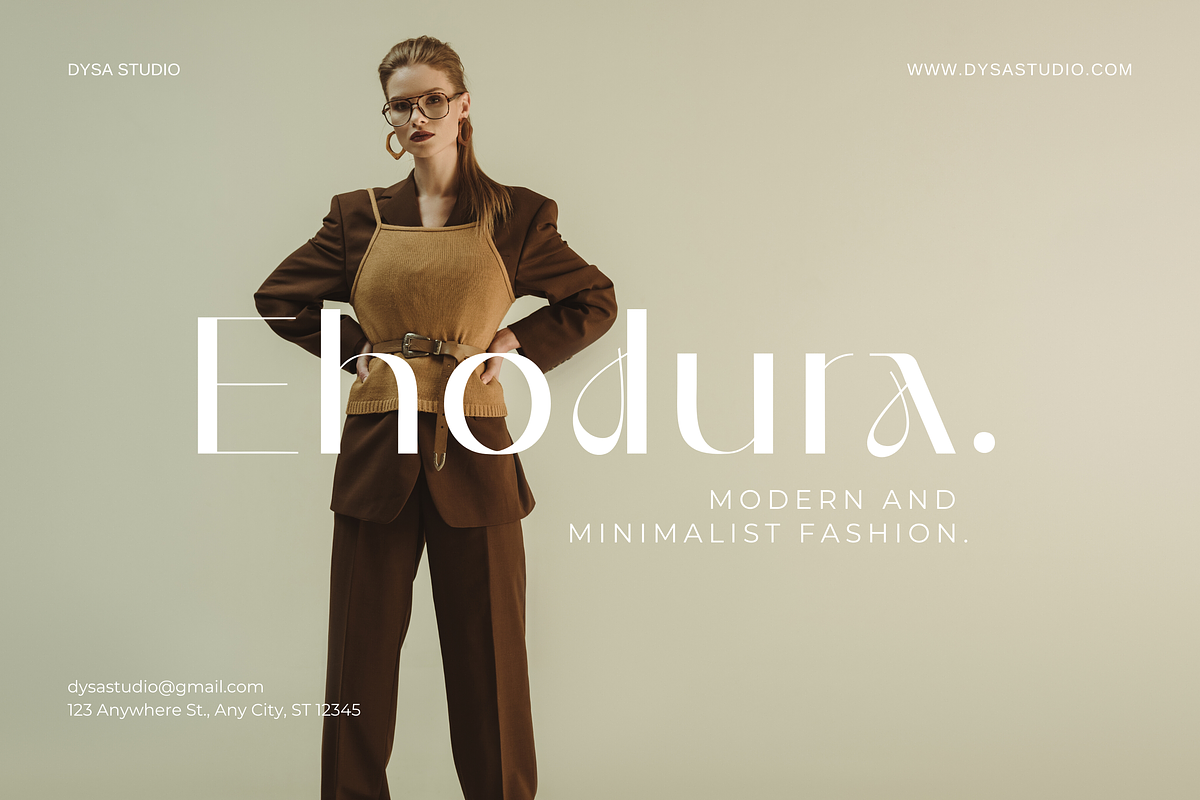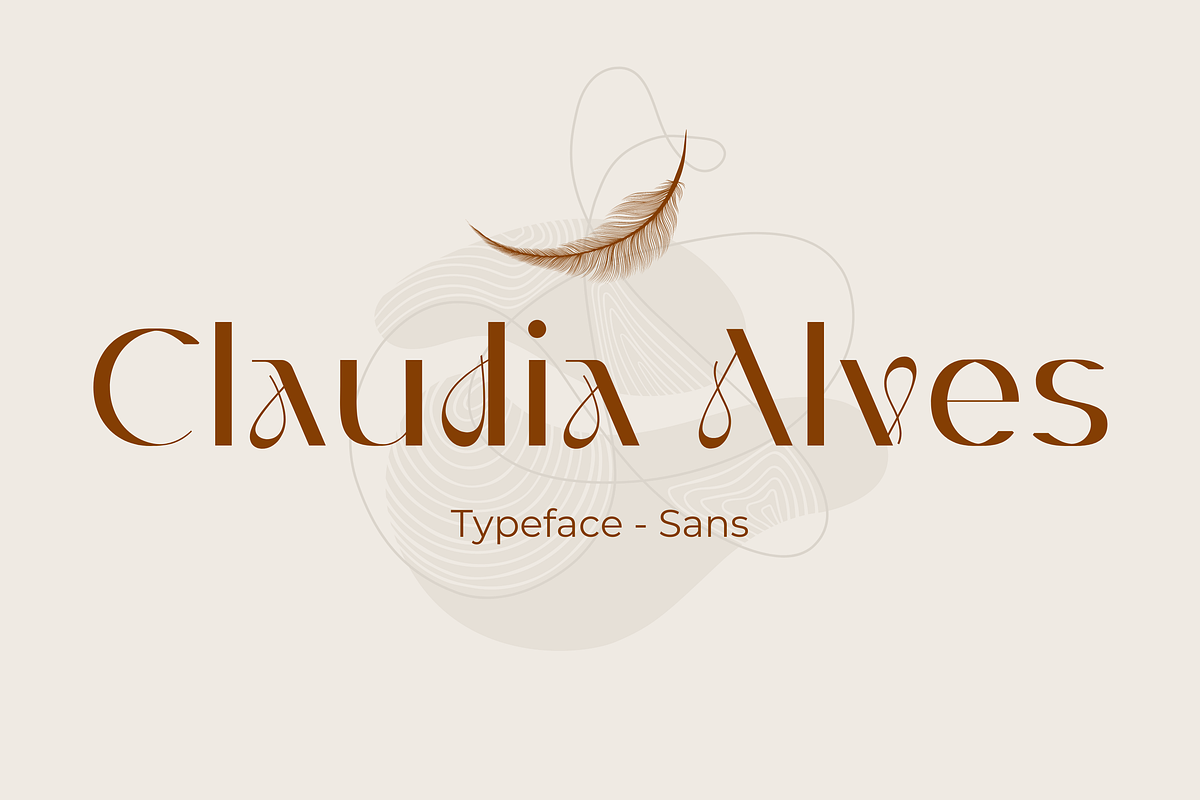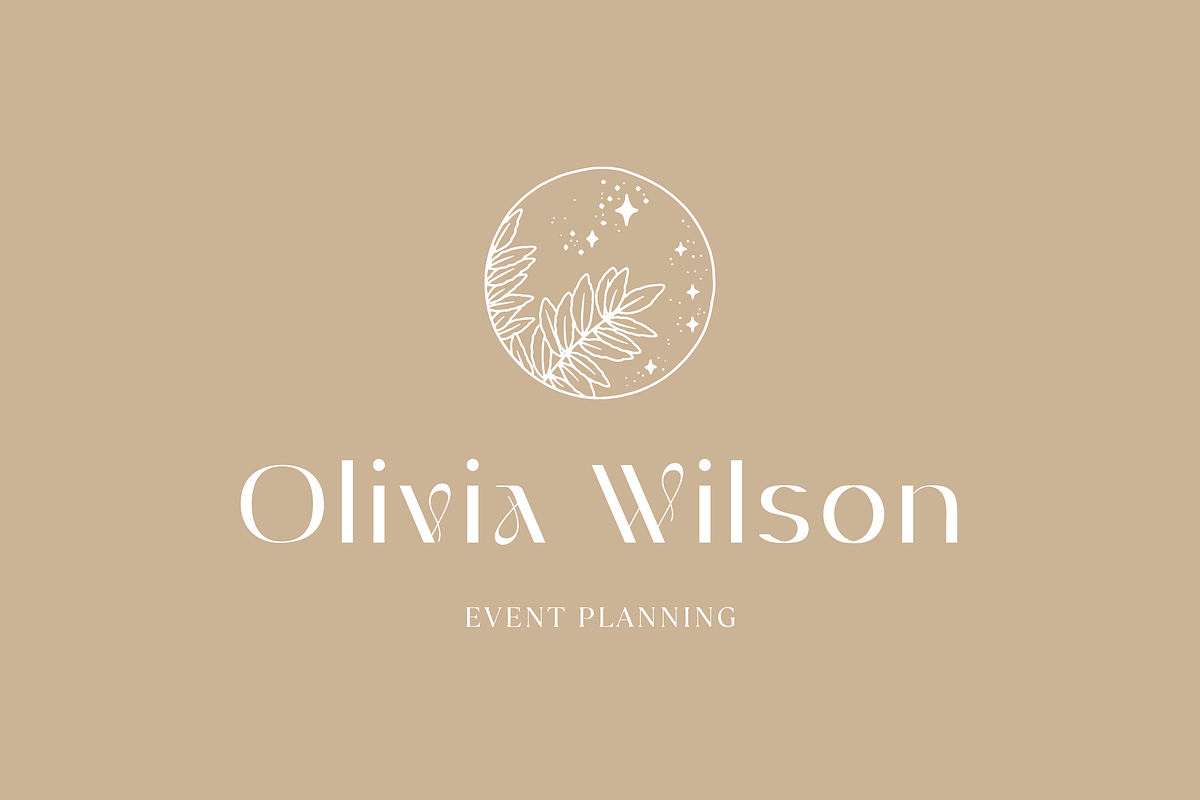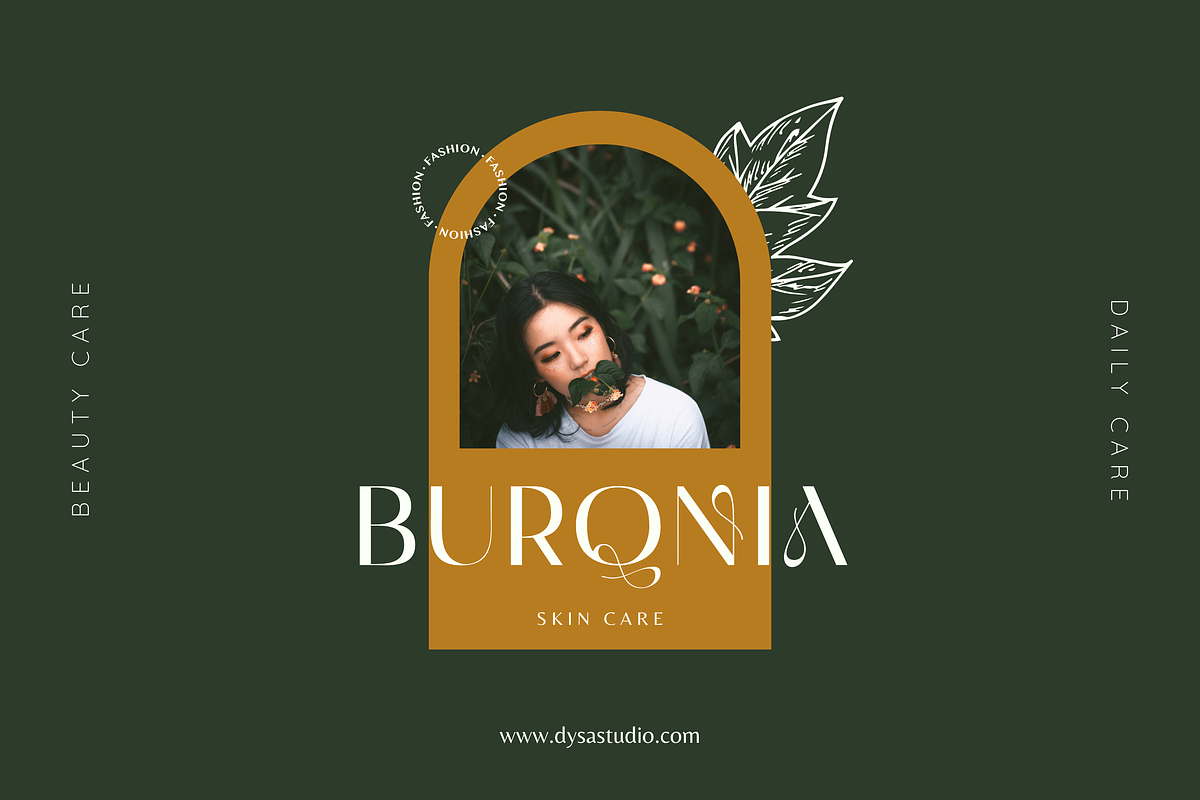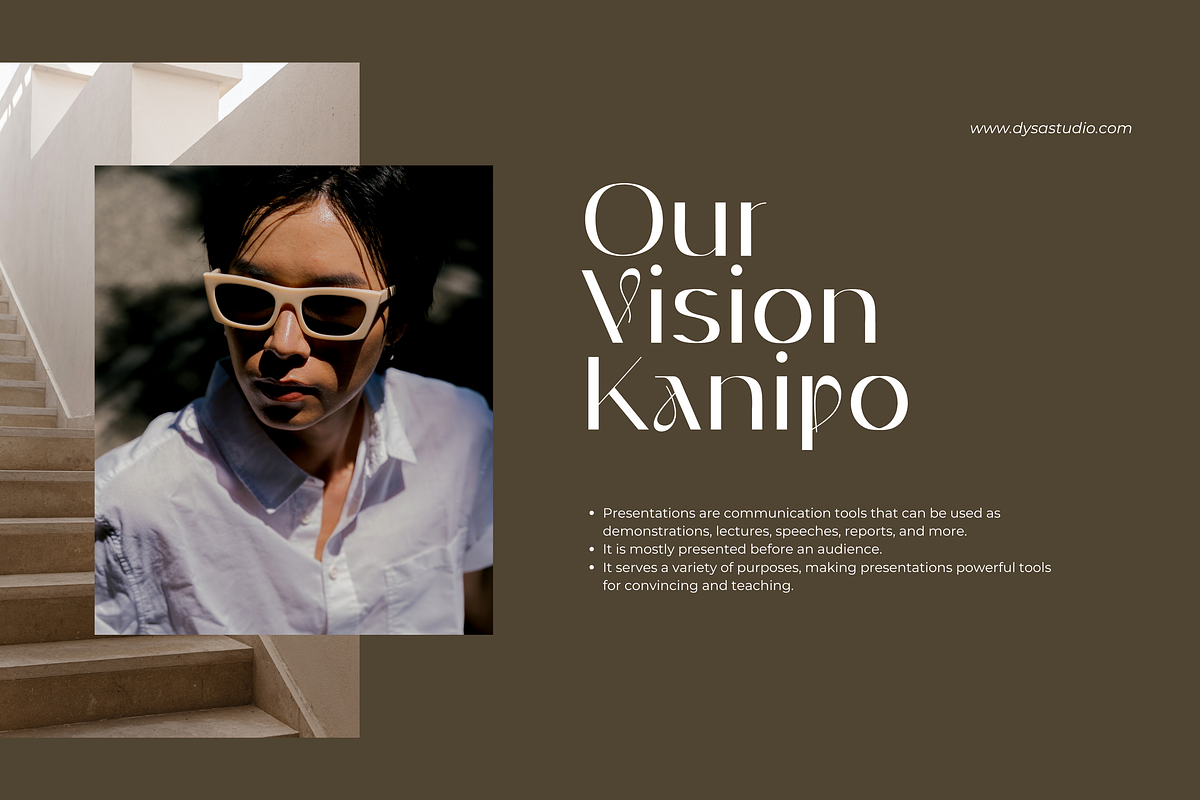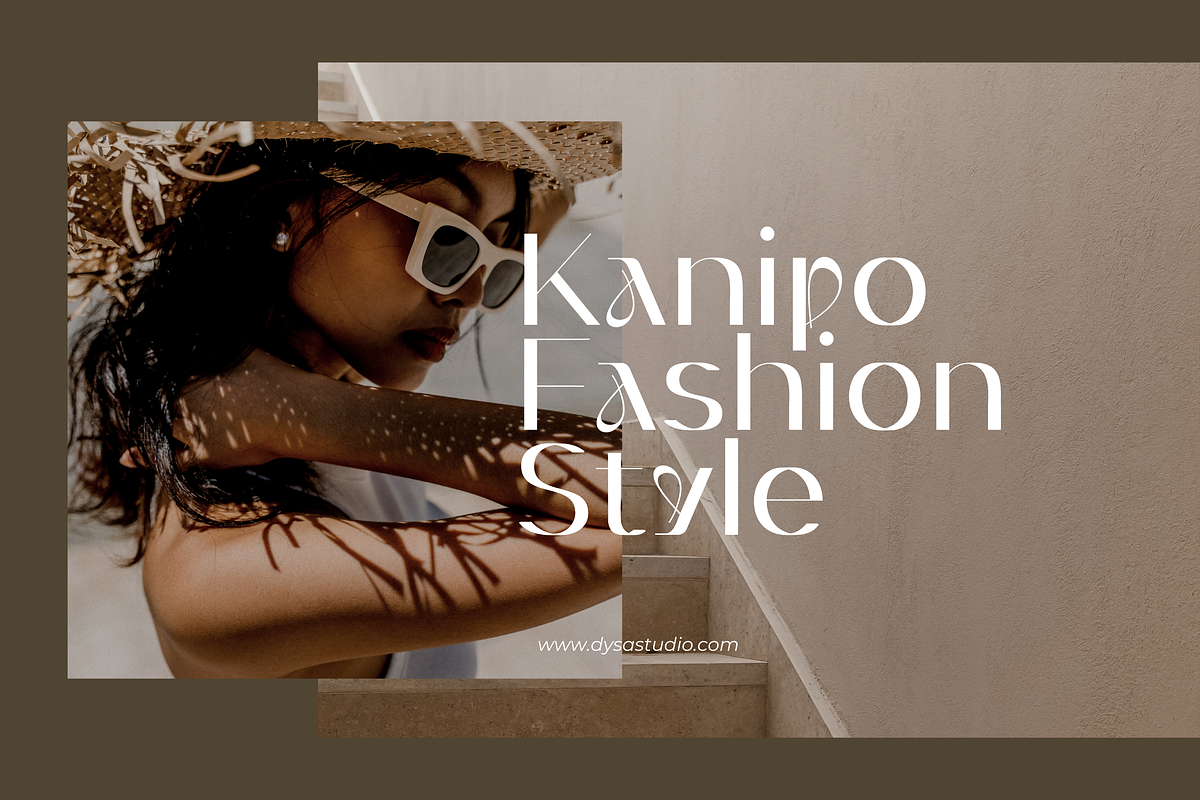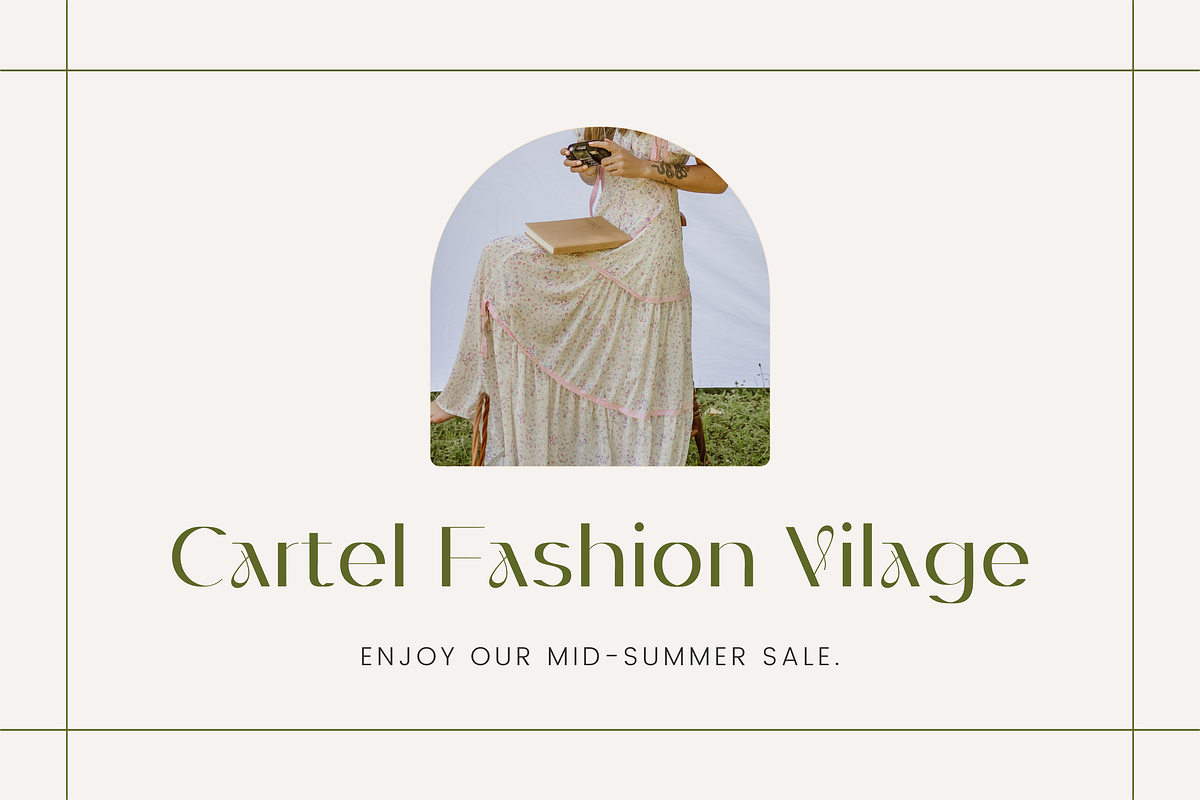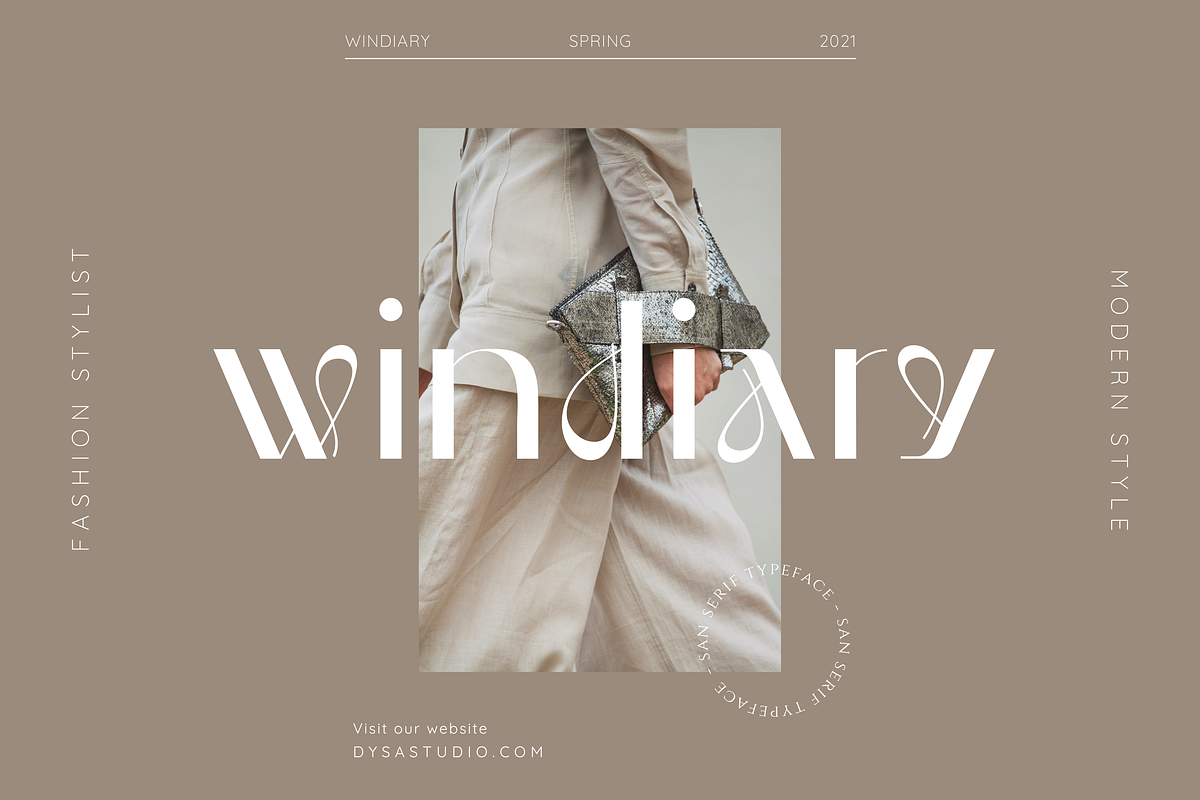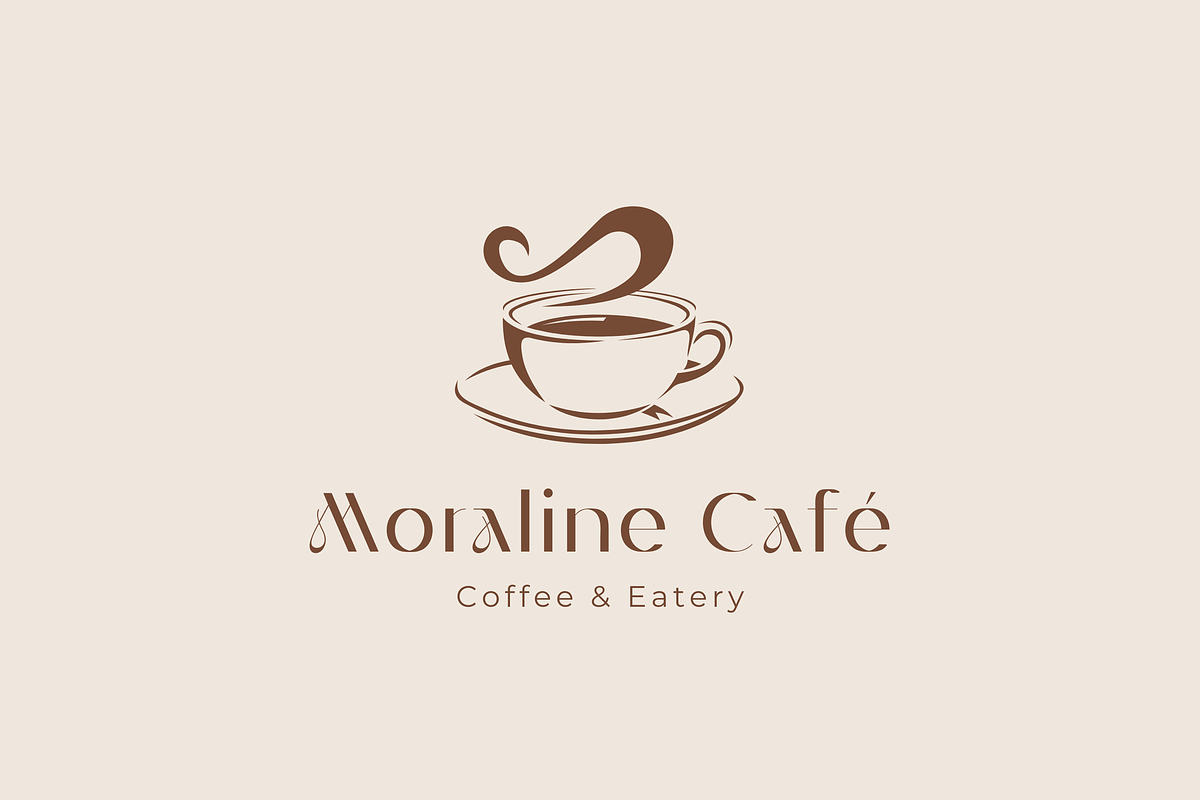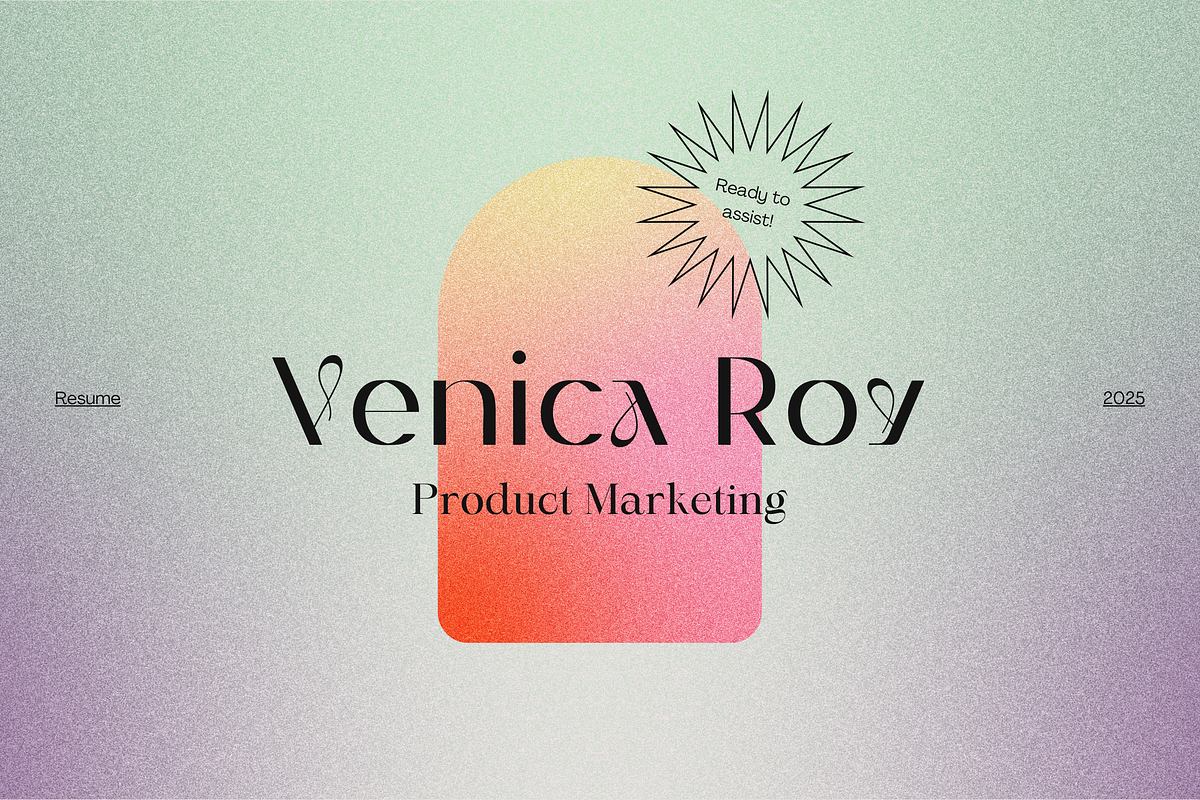
Claudia Alves
Claudia Alves is a New Modern Serif Typeface. This another collection of Serif is perfect for your next branding project, excellent for your business. Claudia Alves have a smooth edges, so this font gives an authentic handcrafted feel style.
Claudia Alves is perfect choice for people looking for clean, modern, minimalist, elegant, beauty design styles. Suitable for almost any graphic designs such as logo, branding materials, business cards, gift cards, t-shirt, cover, thumbnail, print, poster, photography, quotes .etc